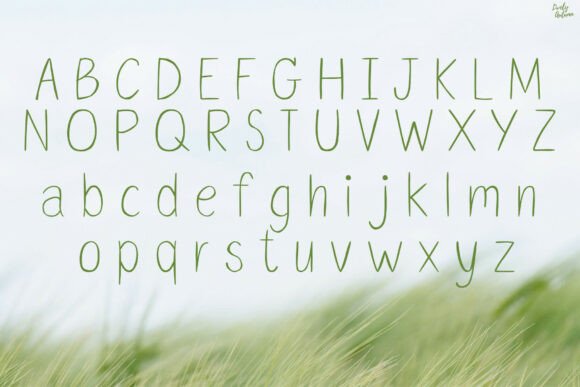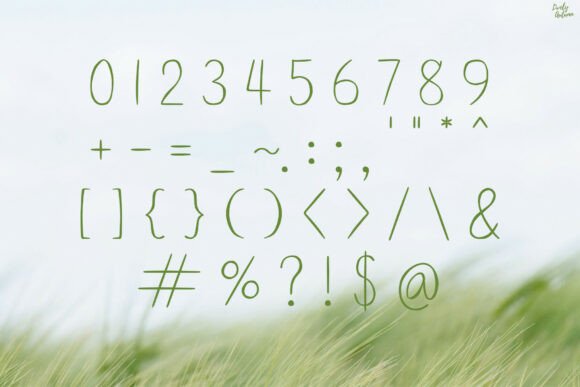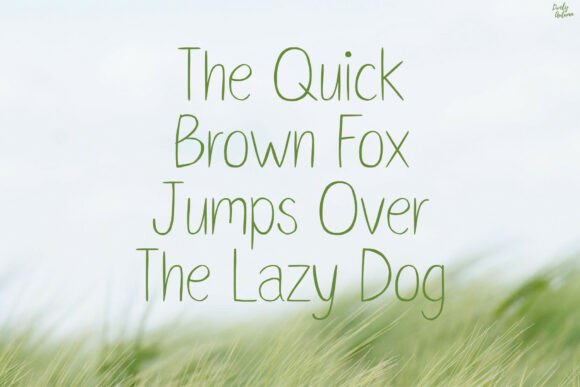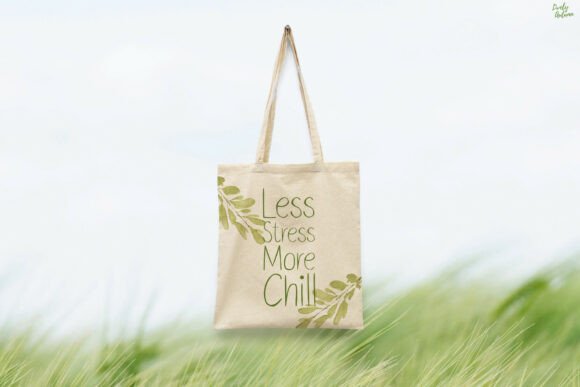
Get Ready to Add a Touch of Whimsy to Your Designs
Do you remember that moment when you stumbled upon the perfect font, and your creativity just took off? The one that made your design ideas sparkle and your imagination run wild? For many designers, this moment is a recurring one, and it’s exactly what Breezy Font is designed to evoke.
Breezy Font is a charming sans serif handwritten font that’s perfect for personal projects, social media graphics, invitations, posters, and so much more. Its playful and airy feel makes it a valuable addition to any designer’s toolkit. With Breezy Font, you’ll be able to add a touch of whimsy to your designs, making them stand out in a crowded digital space.
Breezy Font Key Features
- Font Family: Breezy Font is a sans-serif font family designed to provide a clean and modern look. It comes in various weights, from light to bold.
- Character Set: The font includes a wide range of characters, including Latin, Cyrillic, and Greek alphabets, as well as punctuation marks and symbols.
- Unique Characteristics: Breezy Font features a unique blend of modern and elegant design elements, including rounded edges, open apertures, and a subtle italic style, making it perfect for use in various design projects, from logos to body text.
Breezy Font Review
I recently had the chance to work with the Breezy font, and I’m excited to share my honest thoughts with you. Overall, I think it’s a solid choice for many design projects.
- Friendly and approachable vibe: The Breezy font has a warm and inviting feel that’s perfect for brand identities, packaging, and other design elements where you want to create a sense of connection with your audience.
- Clear and readable: The font is highly legible, making it an excellent choice for body text and other areas where clarity is key.
- Versatile: Breezy comes in a range of weights and styles, allowing you to use it for everything from headers to footers and even logos.
- Limited expressiveness: While the Breezy font is friendly and approachable, it may not be the best choice for projects that require a more dramatic or attention-grabbing feel.
- Not ideal for small text: The font’s friendly vibe can sometimes make it difficult to read in small sizes, so be sure to test it at various scales before finalizing your design.
Overall, I think the Breezy font is a solid choice for designers who want a friendly and approachable vibe without sacrificing clarity and readability. While it may not be the best fit for every project, it’s definitely worth considering for your next design challenge.
Common Use Cases for Breezy Font
Breezy Font is commonly used for:
- Travel and tourism marketing
- Summer and outdoor-themed
Alternatives to Breezy Font
Lato is a modern sans-serif font that offers a clean and minimalist look. It’s ideal for use in digital products, such as websites and mobile apps, where a clear and easy-to-read font is necessary. Lato is more geometric and structured compared to Breezy Font, which has a more organic and casual feel.
Montserrat is a sans-serif font that originated in Buenos Aires, Argentina. It’s highly legible and versatile, making it suitable for a wide range of applications, from body text to headings. Montserrat is more condensed and modern compared to Breezy Font, which has a more relaxed and casual feel.